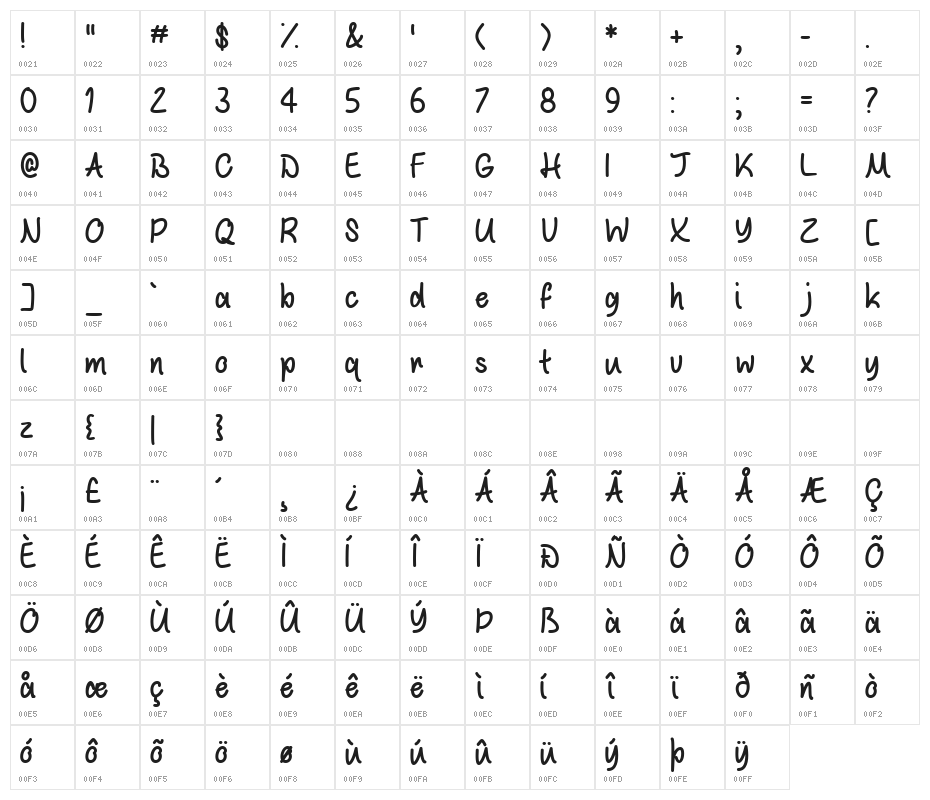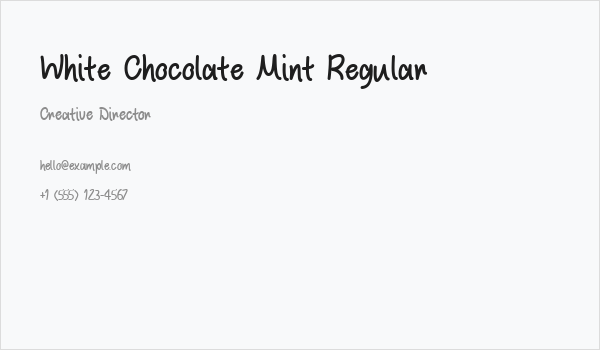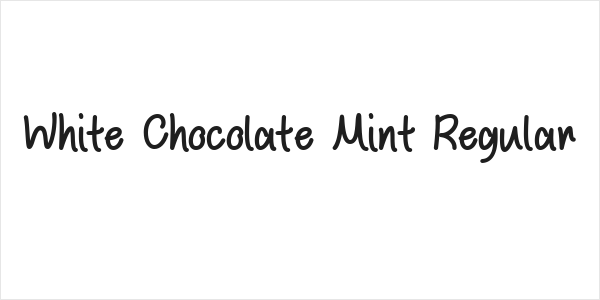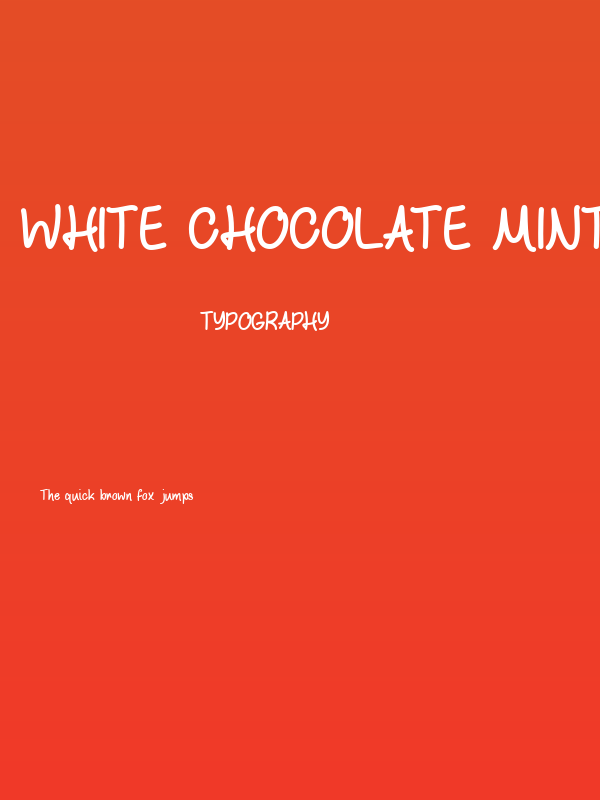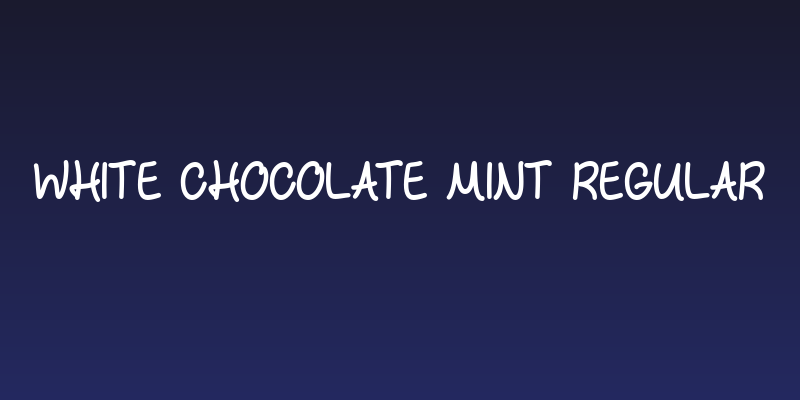
White Chocolate Mint Regular Font
White Chocolate Mint Regular Description
This playful and casual font features a handwritten style with smooth, rounded edges and a friendly appearance. The characters are slightly slanted, giving it a dynamic and informal feel. The uppercase and lowercase letters maintain a consistent flow, while the numerals and special characters complement the overall style. The font's organic curves and moderate weight make it suitable for projects that require a personal touch. Its legibility and charm make it ideal for a variety of creative applications.
Overall StyleCasual
Use CaseHeadlines, Logos, Informal Text
Proposed ProjectsIdeal for greeting cards, children's books, playful branding, and social media graphics.